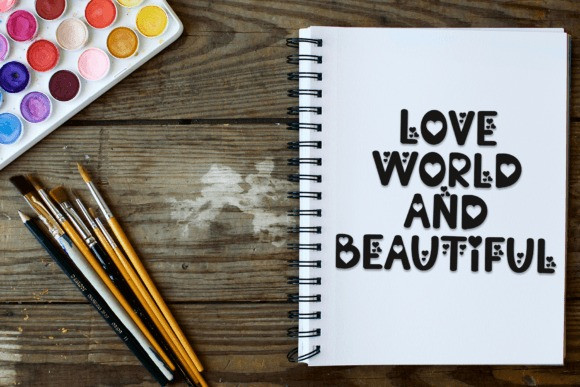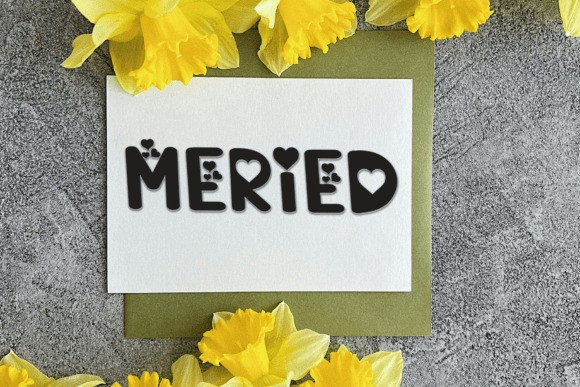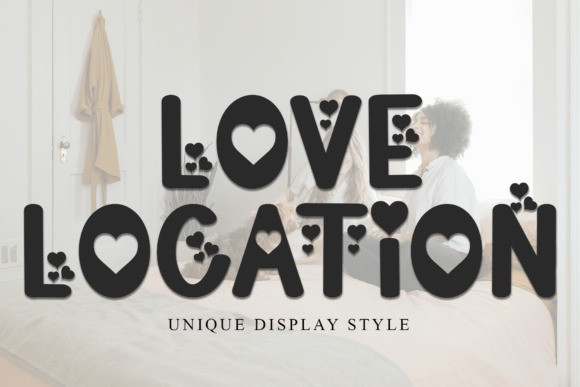
Love Location Font
Love Location Font is a decorative font featuring stylish letters surrounded by cute hearts. It adds a sweet and romantic touch to any text, perfect for invitations, cards, or anything that celebrates love!